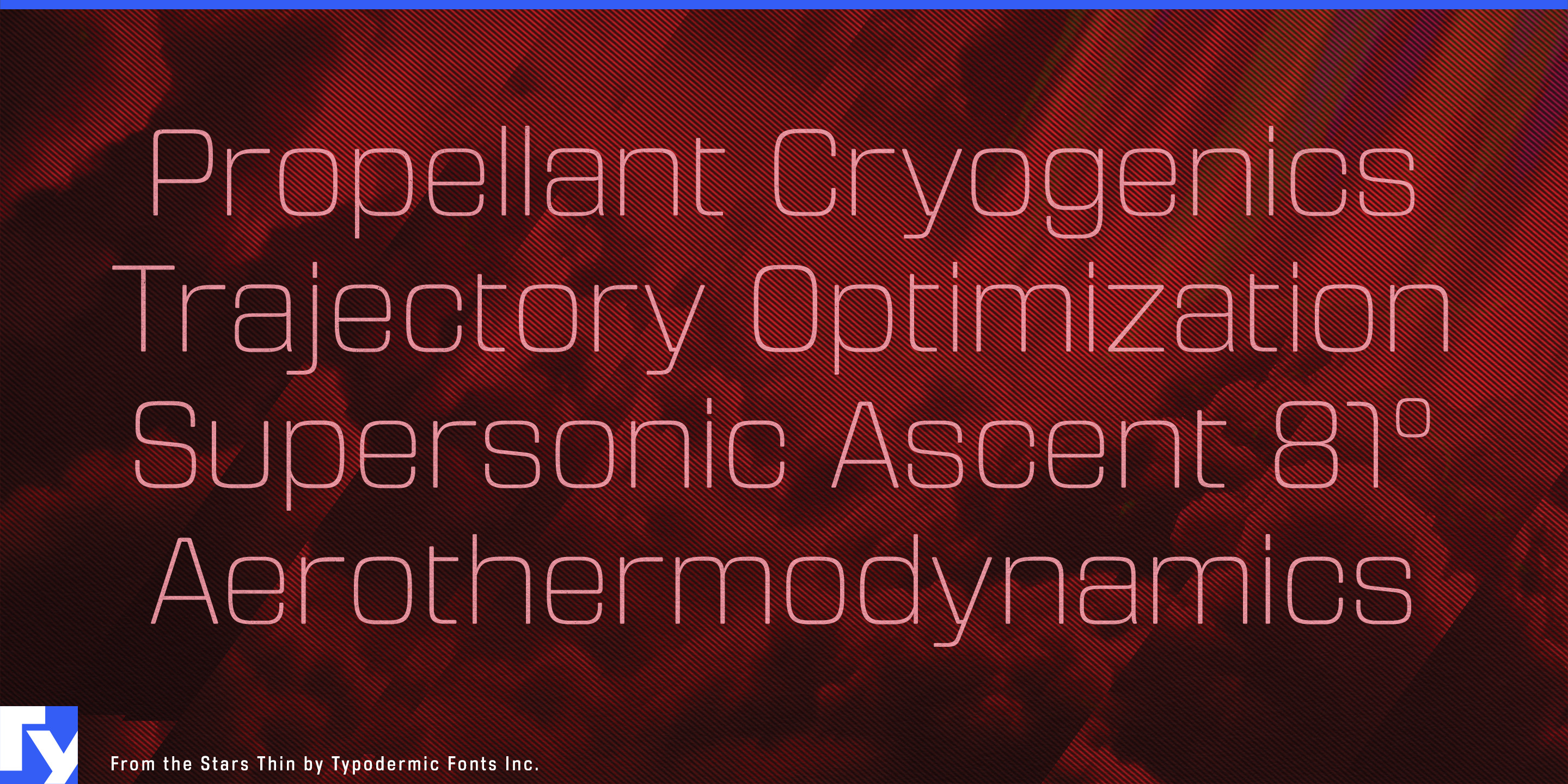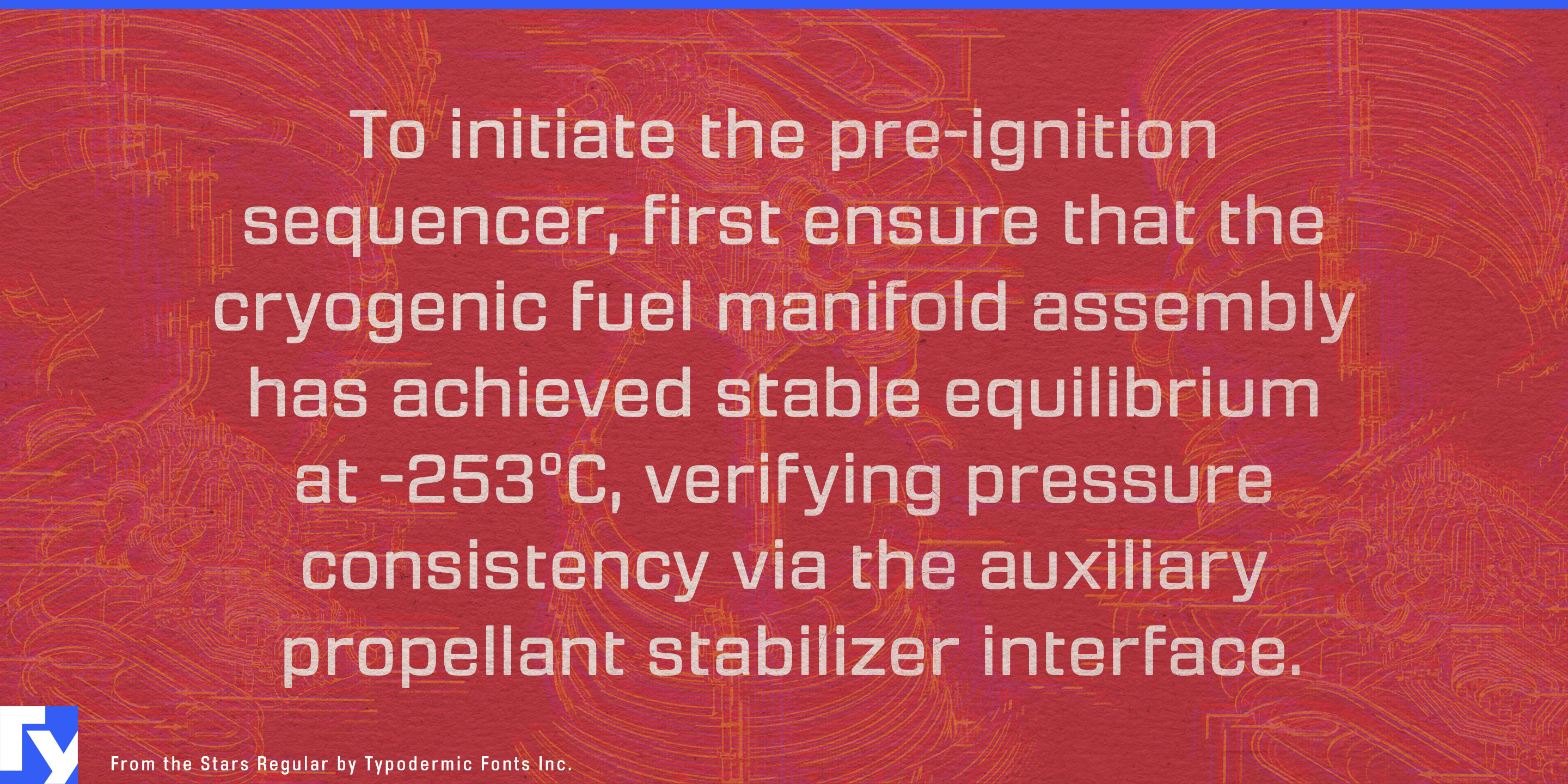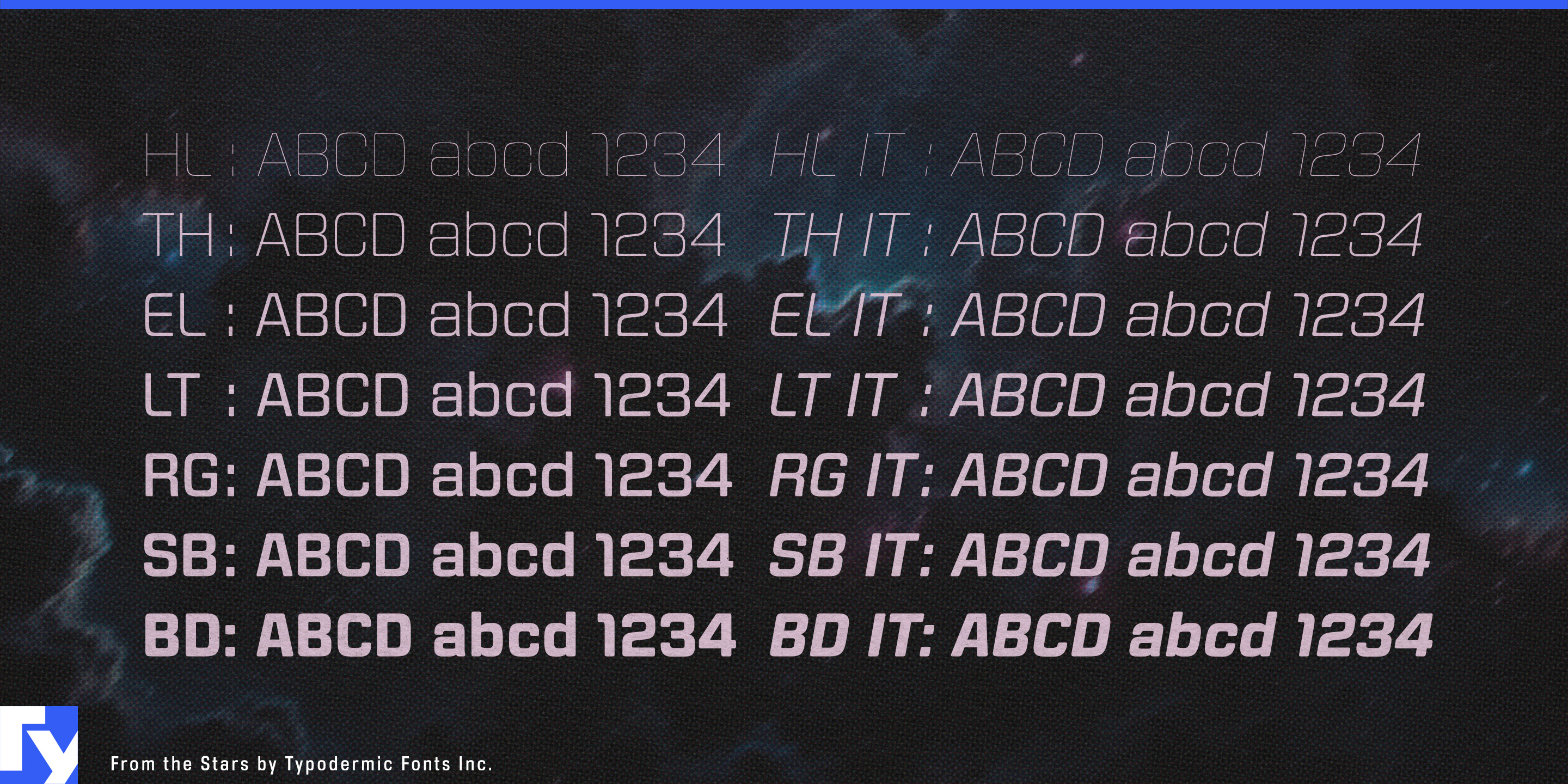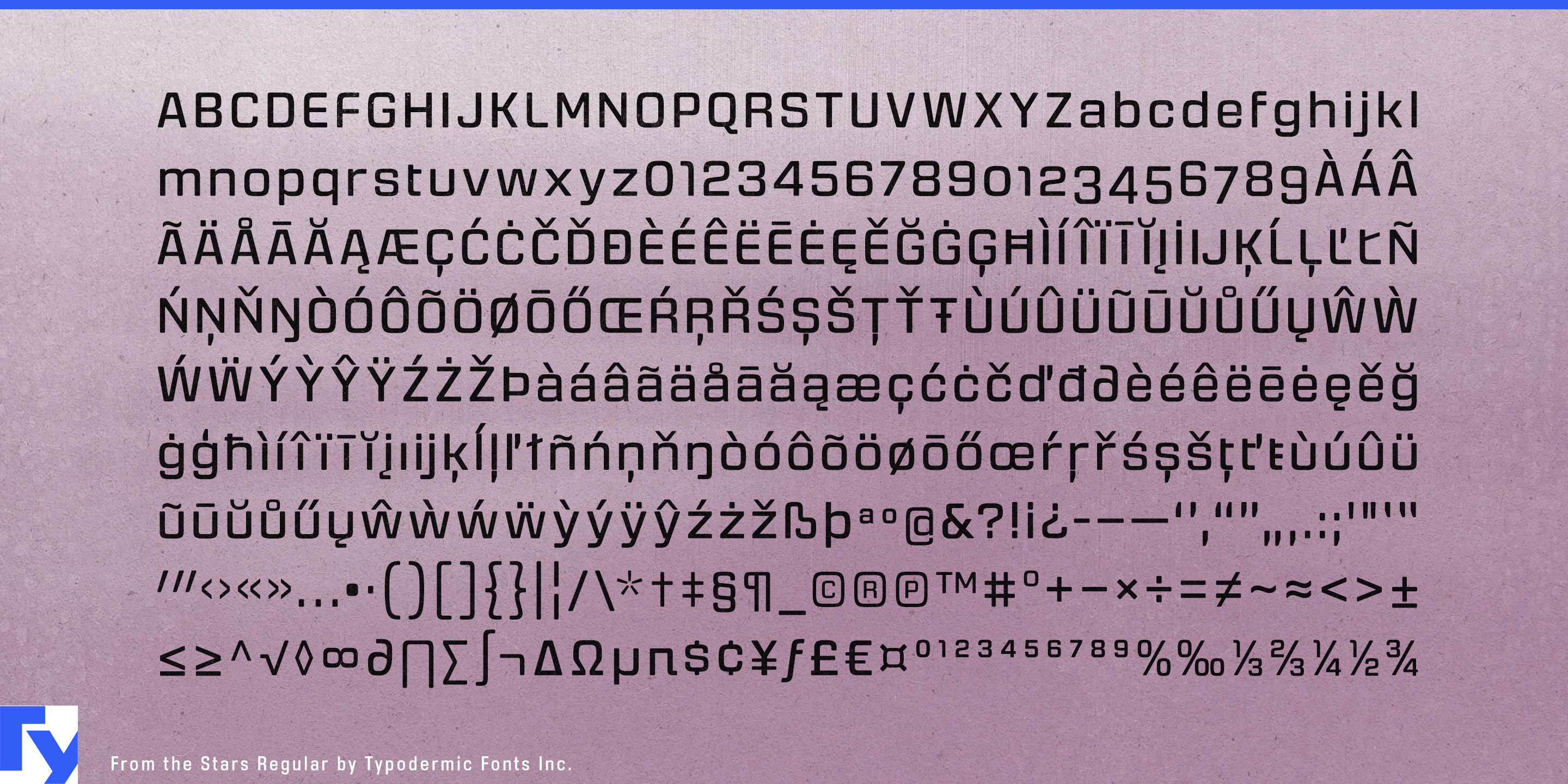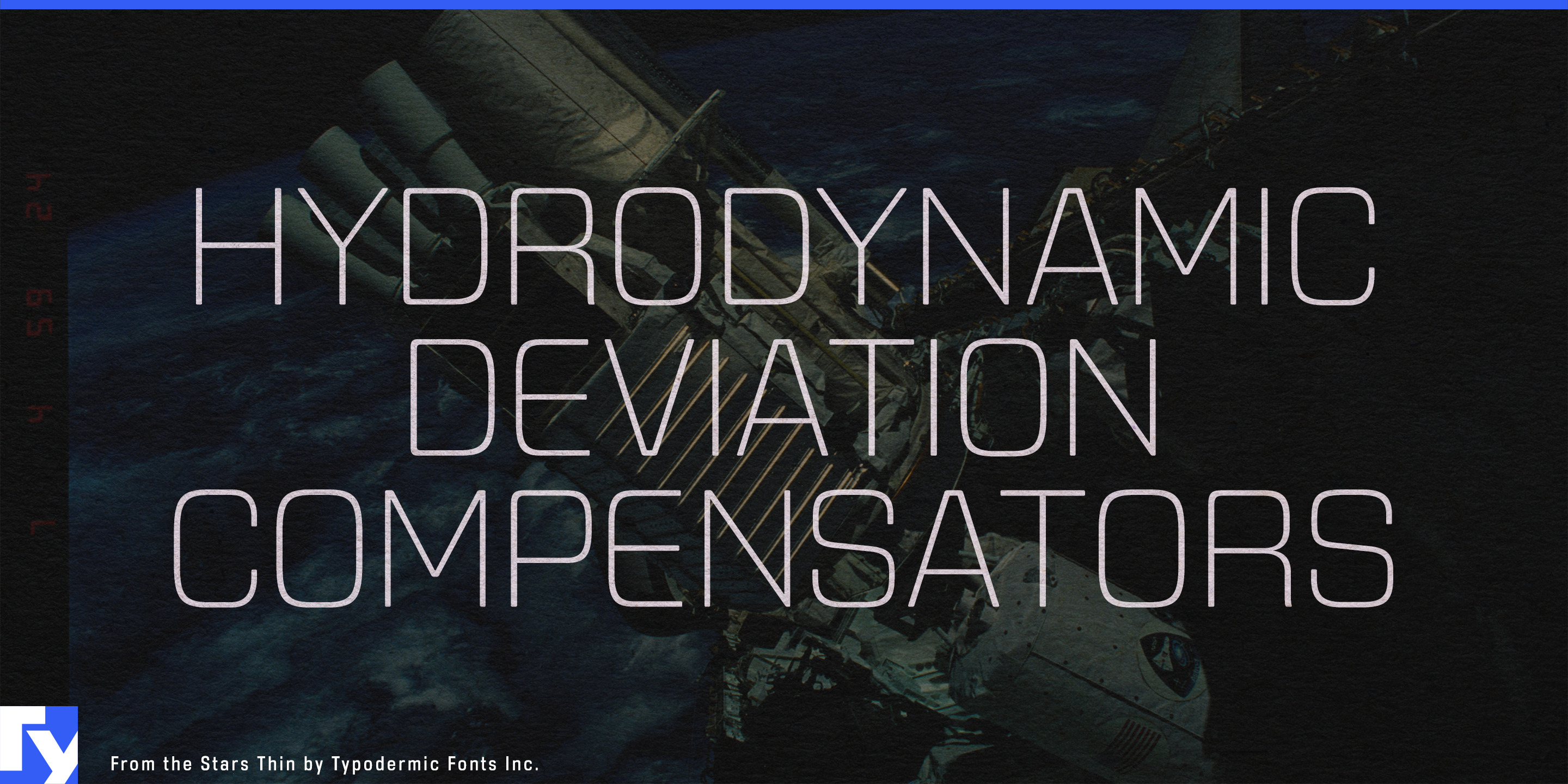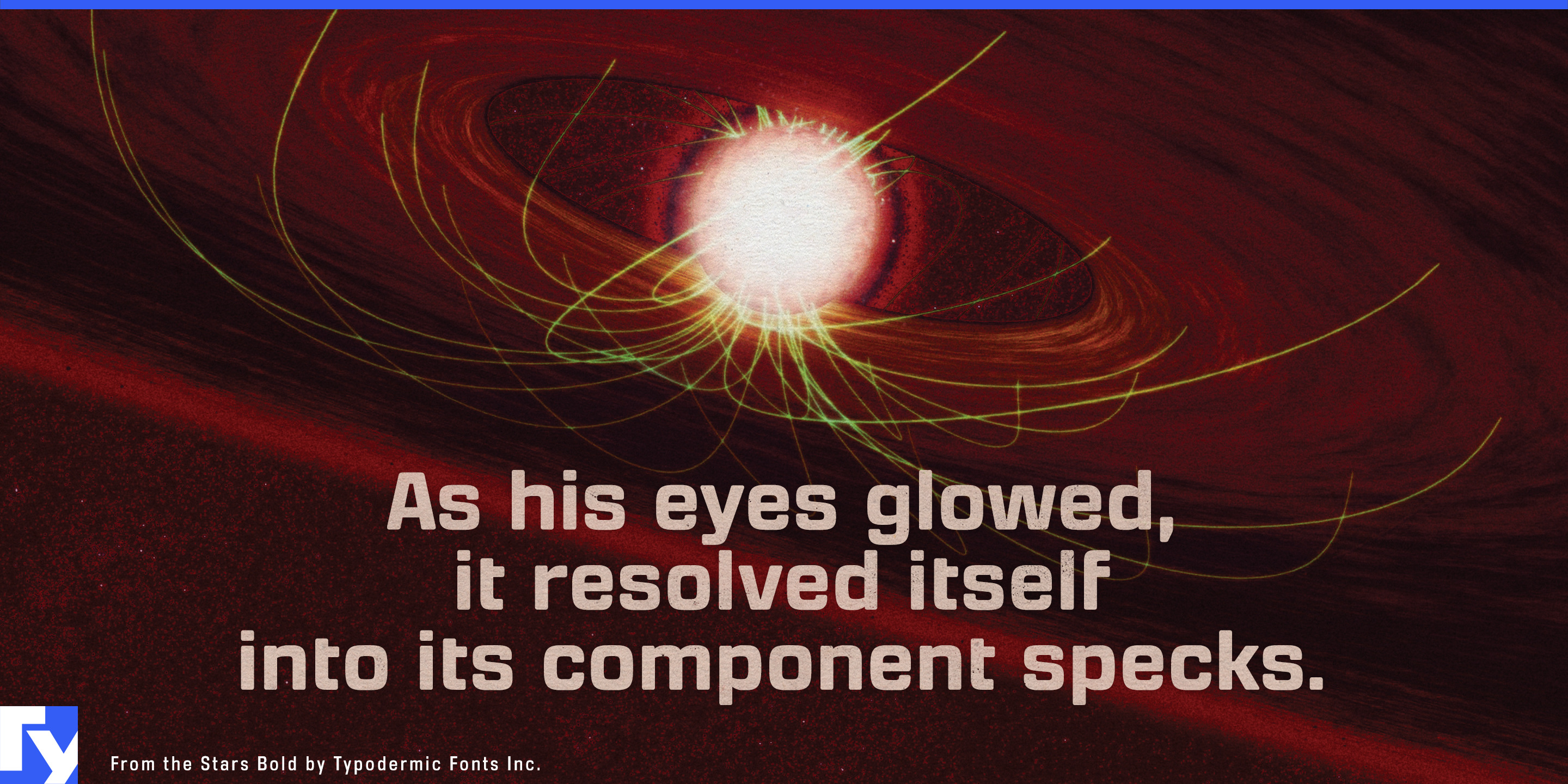
From the Stars
A lot of futuristic typography still looks as though the future is supposed to be dangerous. Hard corners, aggressive diagonals, and military or racing cues suit some machines, but emerging technology increasingly has to share homes, hospitals, workplaces, sidewalks, and public spaces with ordinary people. From the Stars keeps the compact, squared construction of technical display type, then softens the geometry with rounded, bullnosed corners.
Its proportions draw on the closed, efficient forms of square sans serifs, but the softened transitions give the family a less severe character. Seven weights from Hairline through Bold, each with a matching italic, let the same visual language move from fine technical headings to substantial product names and campaign graphics.
Human-facing robotics is an especially natural setting. Delivery robots, hospitality robots, autonomous cleaning equipment, hospital logistics systems, warehouse robots, and emerging humanoid platforms all need identities that look engineered without making the machine appear unnecessarily hostile. From the Stars can handle robot model names, charging-station graphics, fleet dashboards, exhibition walls, launch campaigns, and short interface headings.
Smart-home and residential energy equipment present a similar problem. Heat pumps, home batteries, smart electrical panels, air purifiers, robotic vacuums, ventilation systems, water-management equipment, thermostats, and residential EV hardware increasingly sit in visible domestic environments. From the Stars gives device names, enclosure graphics, retailer displays, control screens, and companion apps a technical identity without making the product feel like factory equipment.
The family name also makes space technology a natural fit. Satellite communications, earth-observation platforms, ground stations, telemetry systems, orbital weather services, and commercial spacecraft suppliers can use From the Stars for platform names, mission dashboards, conference displays, technical presentations, and ground-system interfaces. Telescope manufacturers, astrophotography cameras, observatory controls, star trackers, planetarium systems, and astronomy software can draw on the lighter weights for diagram-like headings while heavier styles carry model names and exhibition titles.
Autonomous mobility and assistive technology extend the same idea into campus shuttles, airport people movers, delivery vehicles, rehabilitation robotics, mobility aids, home health equipment, and patient-facing devices.
From the Stars is technical typography for a future that has to live around people. Its compact square structure still looks at home beside sensors, screens, satellites, and machinery; the softened corners make that language easier to carry into homes, public spaces, healthcare, and everyday mobility.